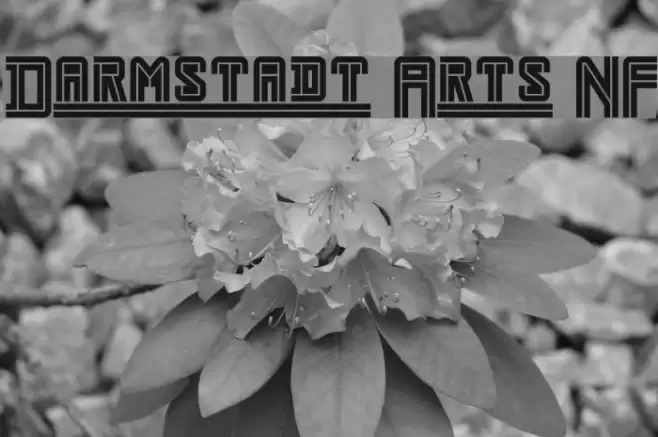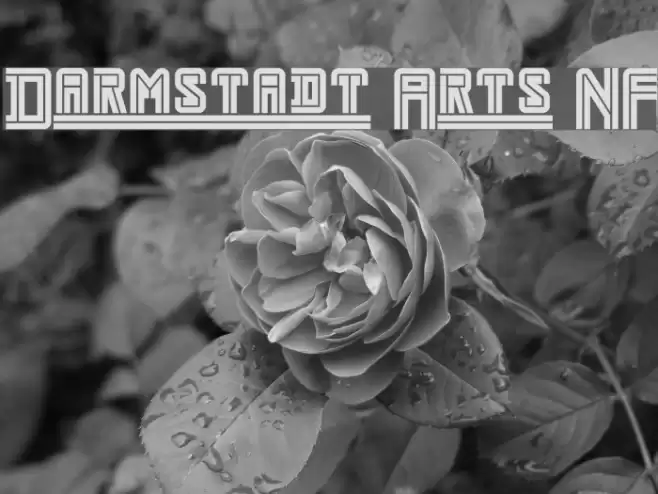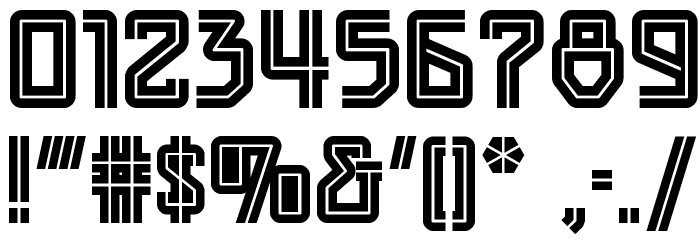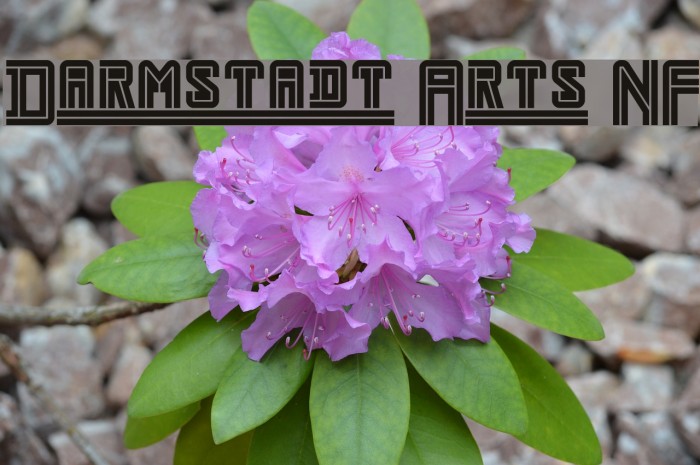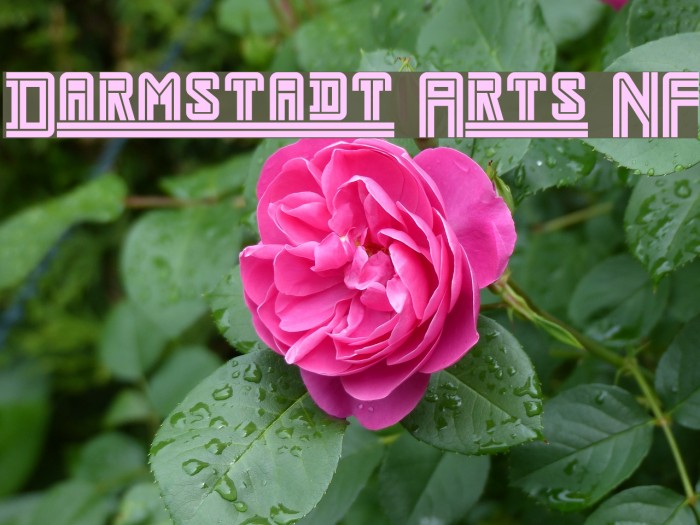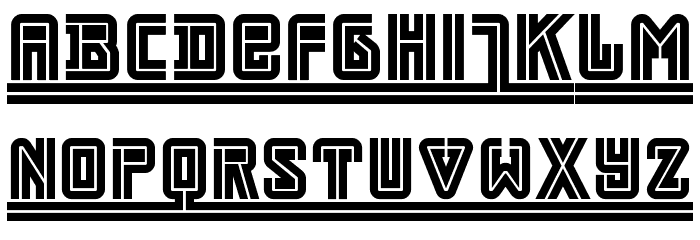
Darmstadt Arts NF Font
Darmstadt Arts NF Description
This font features a bold, geometric design with a strong emphasis on angular shapes and straight lines. Each character is constructed with a double-line effect, creating a sense of depth and dimension. The uppercase letters are particularly striking, with a futuristic and industrial feel. The numbers and special characters maintain this cohesive style, making the font suitable for attention-grabbing designs. The overall aesthetic is modern and dynamic, perfect for projects that require a bold statement.
A bold, geometric font with a futuristic and industrial design from Retro fonts.
- Proposed Projects: Ideal for posters, logos, branding, and any design needing a strong, modern impact.